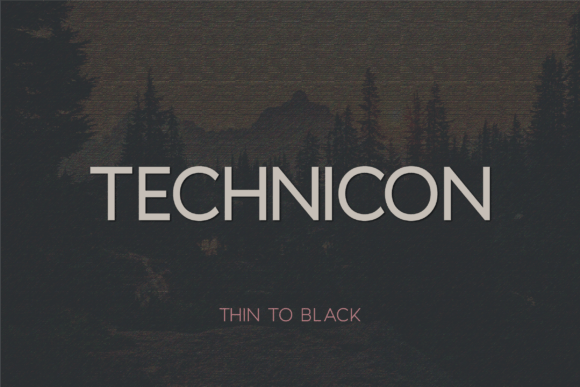
Introducing Technicon Font: A Modern and Versatile Typeface
In the world of typography, fonts play a crucial role in shaping the visual identity of a brand, product, or service. With the ever-evolving landscape of design, the demand for modern and versatile fonts has increased significantly. This is where Technicon Font comes into play, a typeface that seamlessly blends clean geometric forms with subtle sophistication, making it an ideal choice for a wide range of design projects.
Design Characteristics of Technicon Font
Technicon Font is a masterful blend of sharp lines and gentle curves, creating a harmonious balance that sets it apart from other typefaces. Its precise letterforms and contemporary aesthetic make it a standout in the world of typography. The font’s design characteristics can be broken down into several key features:
- Clean Geometric Forms: Technicon Font boasts clean and geometric forms that provide a solid foundation for its modern and versatile aesthetic.
- Subtle Sophistication: The font’s subtle sophistication adds a touch of elegance, making it suitable for projects that require a high level of refinement.
- Adaptable Style: Technicon Font’s adaptable style allows it to thrive in various design contexts, from branding and logos to headlines and body text.
The Range of Weights: Flexibility and Versatility
One of the standout features of Technicon Font is its range of weights, which provides designers with the flexibility to explore a wide array of applications. Whether you’re looking to create a bold and impactful statement or a subtle and refined design, Technicon Font has got you covered. The range of weights includes:
- Light: Ideal for body text and fine print, the light weight provides a delicate and refined touch.
- Regular: Suitable for general use, the regular weight offers a balanced and harmonious aesthetic.
- Bold: Perfect for headlines and titles, the bold weight makes a statement with its confident and impactful presence.
Applications of Technicon Font
Technicon Font excels in a variety of design projects, including:
- Branding: Create a lasting impression with Technicon Font’s modern and professional aesthetic.
- Logos: The font’s clean geometric forms and subtle sophistication make it an ideal choice for logos that require a high level of refinement.
- Headlines: Technicon Font’s range of weights provides the perfect solution for headlines that demand attention.
- Design Projects: From brochures to websites, Technicon Font is the perfect choice for any design project that requires a contemporary and sophisticated look.
The Benefits of Using Technicon Font
So, why choose Technicon Font for your design projects? Here are just a few benefits of using this versatile typeface:
- Modern and Professional Aesthetic: Technicon Font provides a modern and professional aesthetic that is sure to impress.
- Flexibility: The font’s range of weights and adaptable style make it suitable for a wide range of design projects.
- Readability: Technicon Font’s clean geometric forms and precise letterforms ensure excellent readability, even at small sizes.
- Uniqueness: With its subtle sophistication and harmonious balance of sharp lines and gentle curves, Technicon Font stands out from other typefaces.
Tips for Using Technicon Font Effectively
To get the most out of Technicon Font, here are a few tips to keep in mind:
- Experiment with Weights: Don’t be afraid to experiment with different weights to find the perfect balance for your design.
- Pair with Other Fonts: Technicon Font pairs well with other modern and sans-serif fonts, making it easy to create a harmonious typography system.
- Adjust Letter Spacing: Adjusting letter spacing can help to create a more refined and elegant aesthetic.
- Use in Combination with Images: Technicon Font works well in combination with images, making it a great choice for projects that require a mix of text and visuals.
In conclusion, Technicon Font is a modern and versatile typeface that is sure to impress. Its clean geometric forms, subtle sophistication, and adaptable style make it an ideal choice for a wide range of design projects. With its range of weights and excellent readability, Technicon Font provides the perfect solution for designers looking to create a modern and professional aesthetic. Whether you’re working on a branding project, logo design, or simply need a font for your website, Technicon Font is a great choice.
- What is Technicon Font? Technicon Font is a modern and versatile typeface that blends clean geometric forms with subtle sophistication.
- What are the key features of Technicon Font? The font’s key features include clean geometric forms, subtle sophistication, adaptable style, and a range of weights.
- What design projects is Technicon Font suitable for? Technicon Font excels in branding, logos, headlines, and various design projects that require a contemporary and sophisticated look.